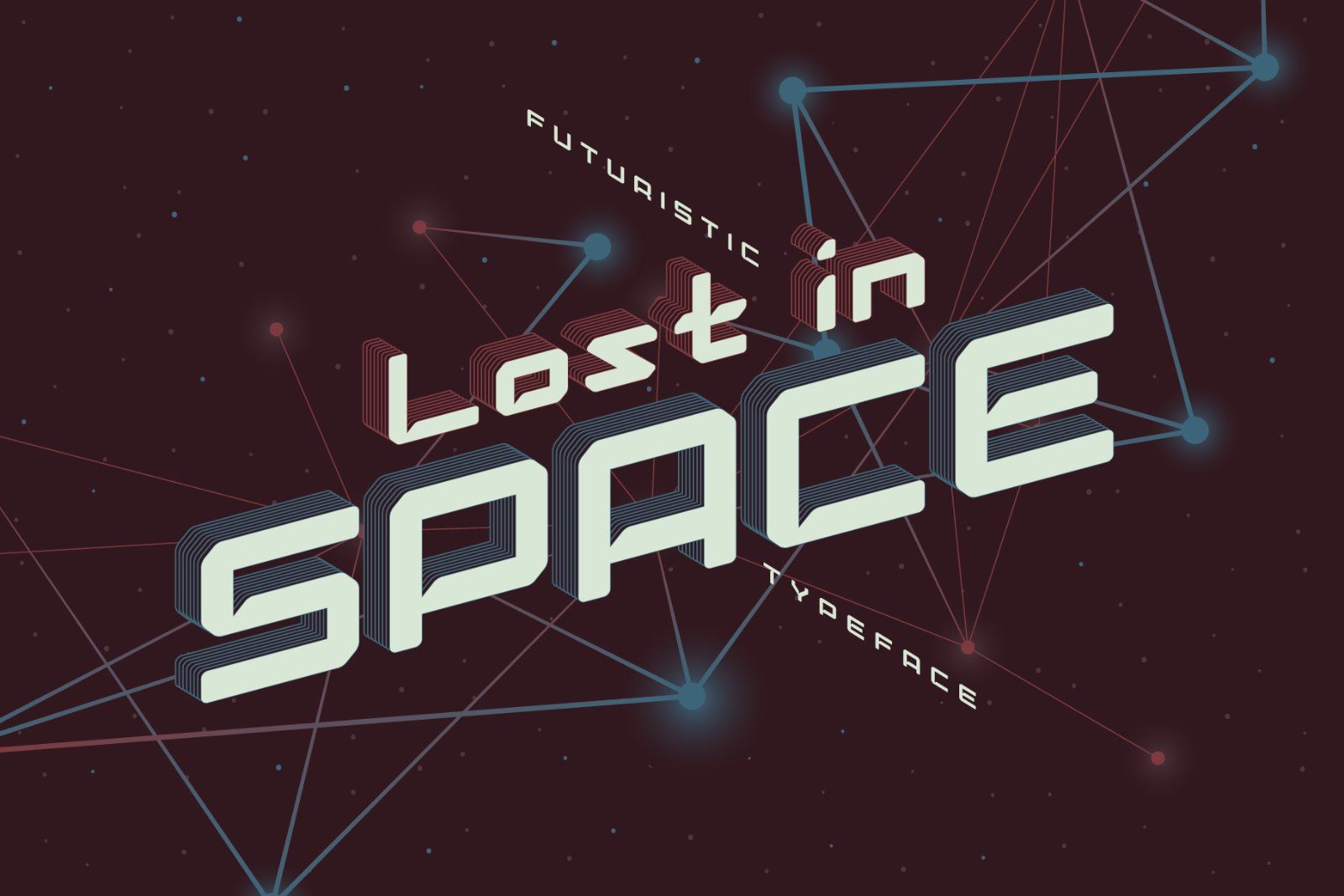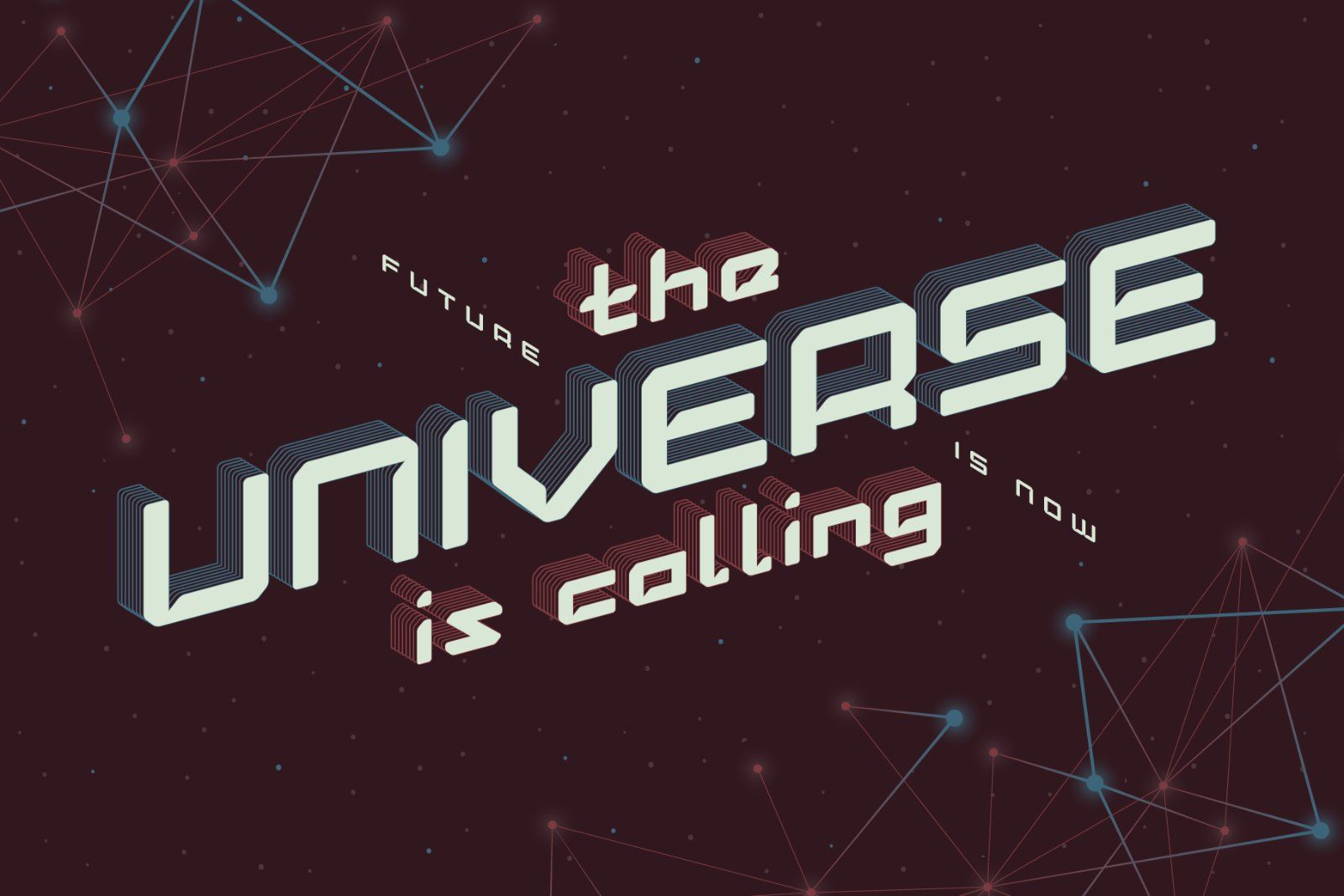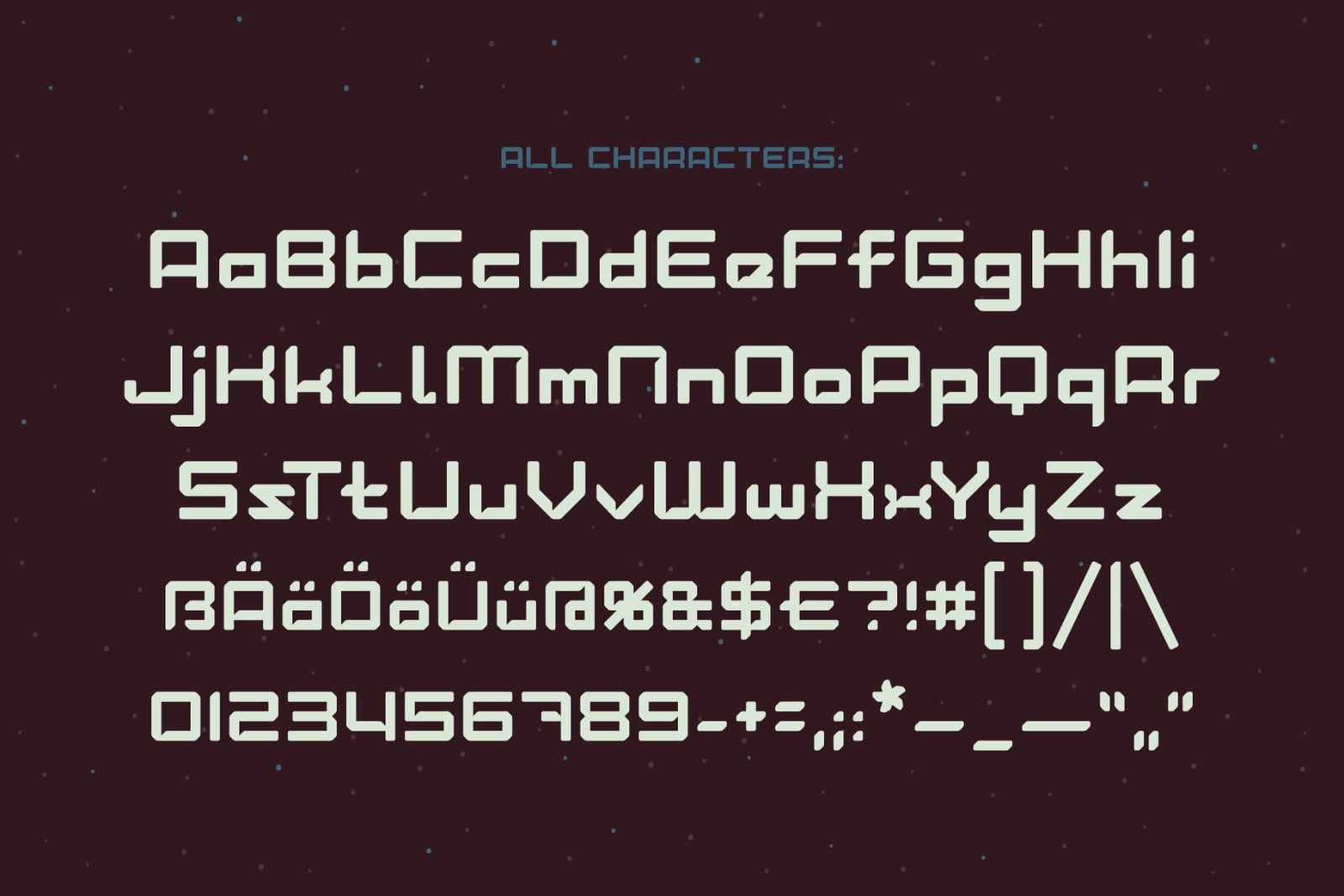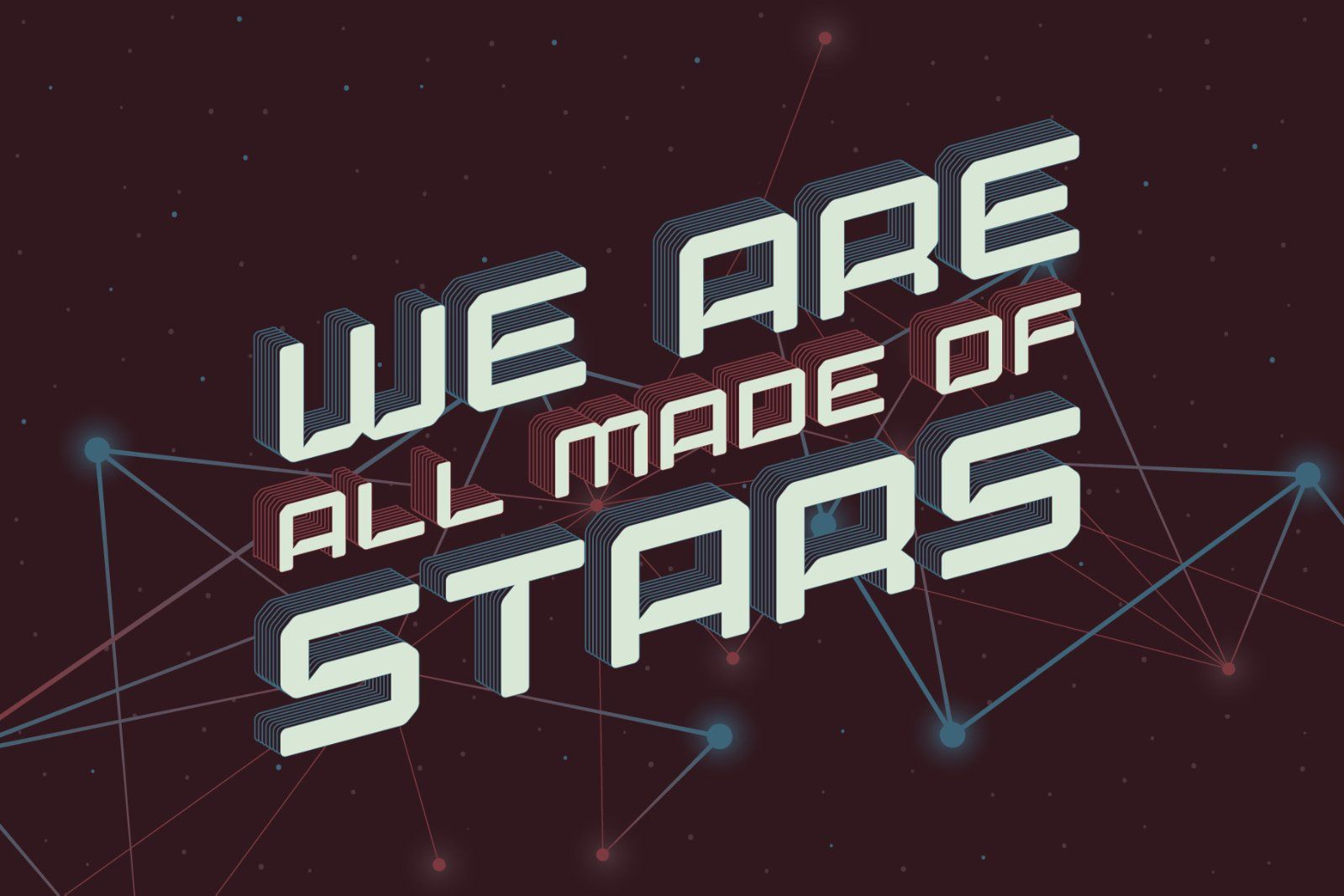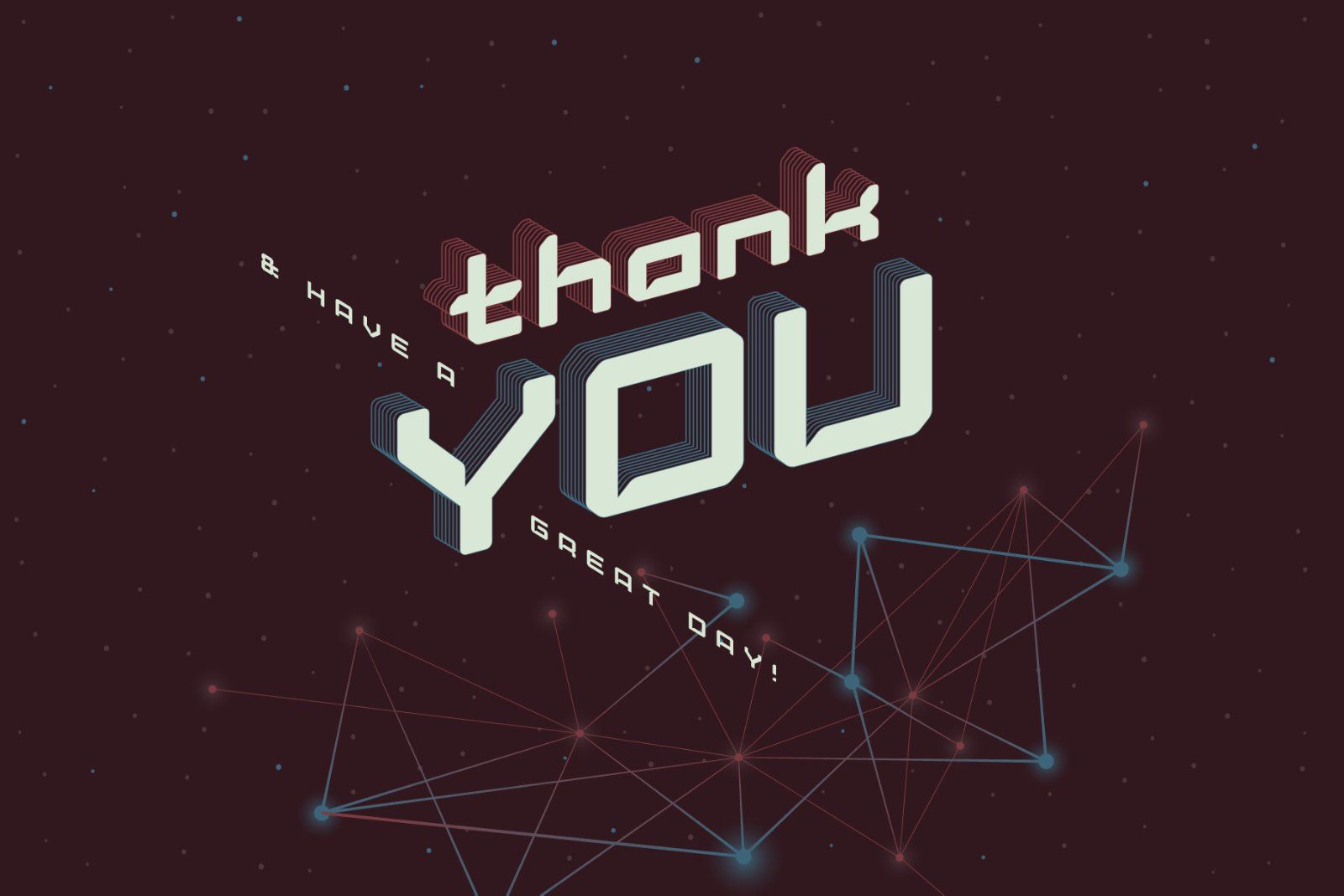
Hi! Introducing a futuristic typeface "Lost in space". It's a geometric vintage font with nice vector bonus included. With otf & ttf font files you will get a vector ai files from 2nd & 4th screenshots with editable text & applied extruded lines effect. Also eps files with expanded to curves graphics are included.